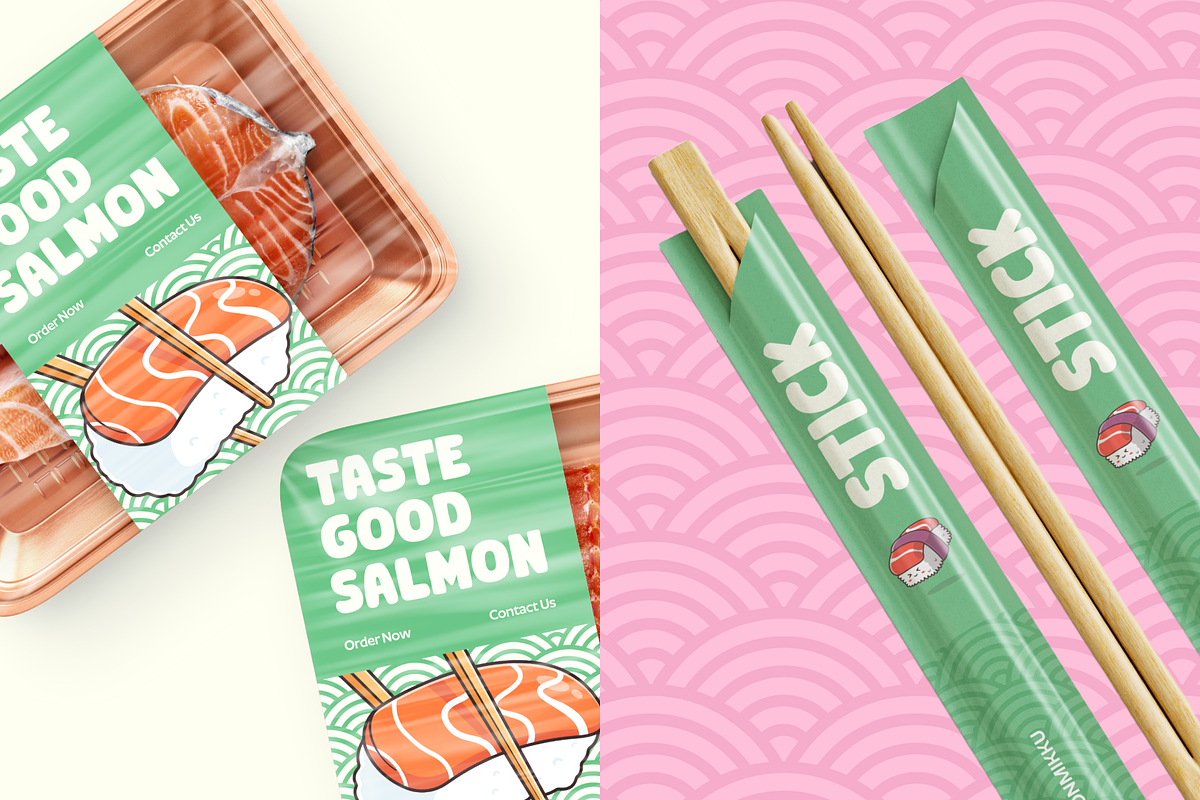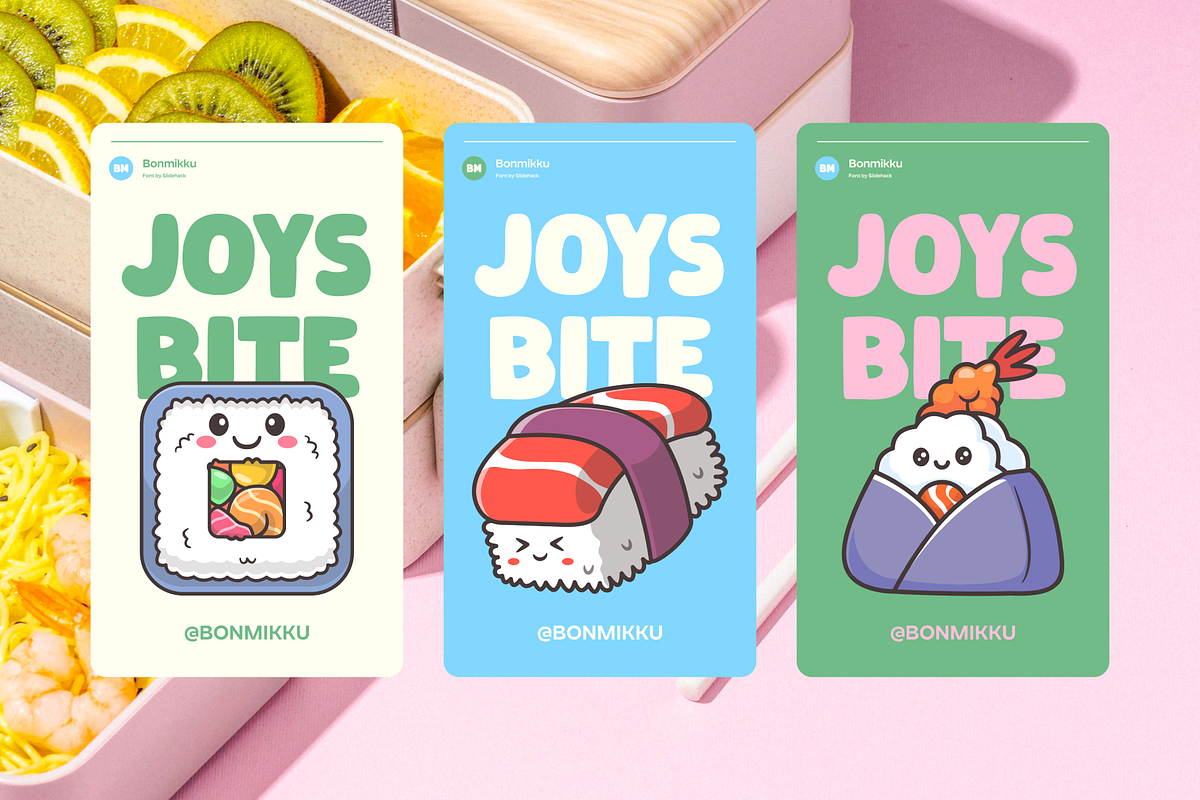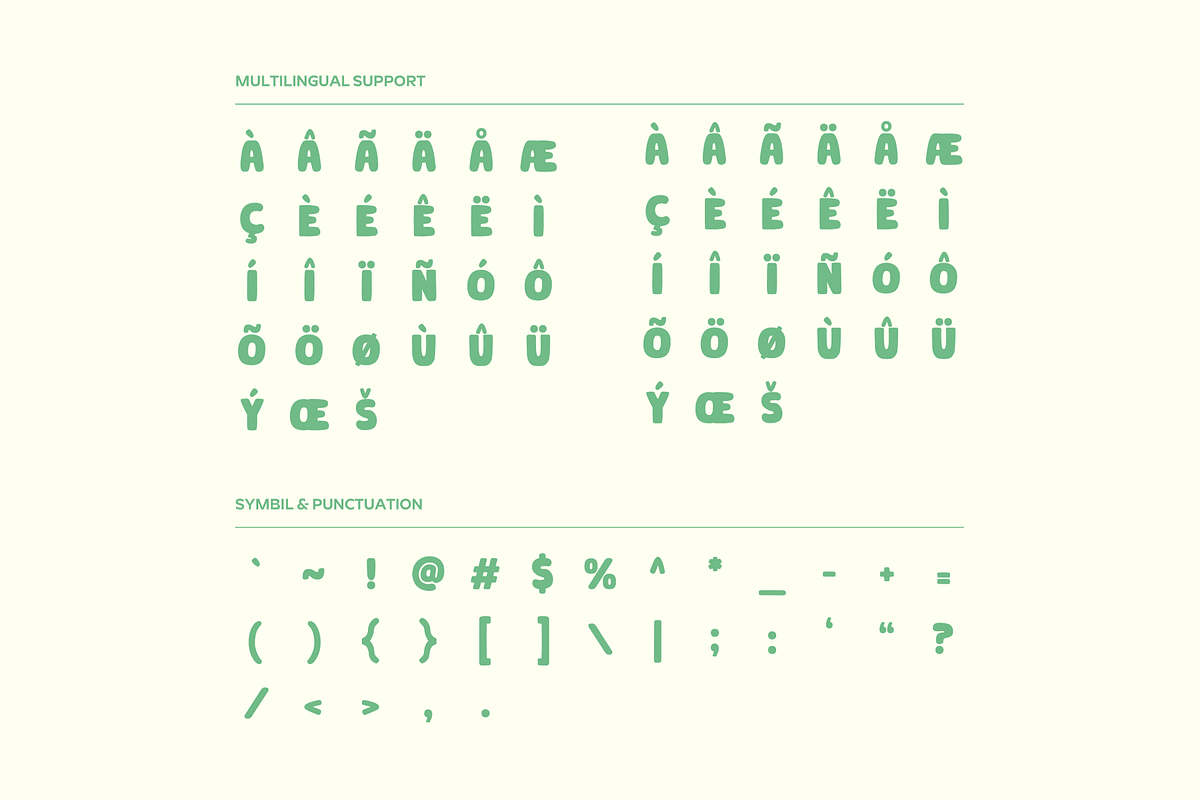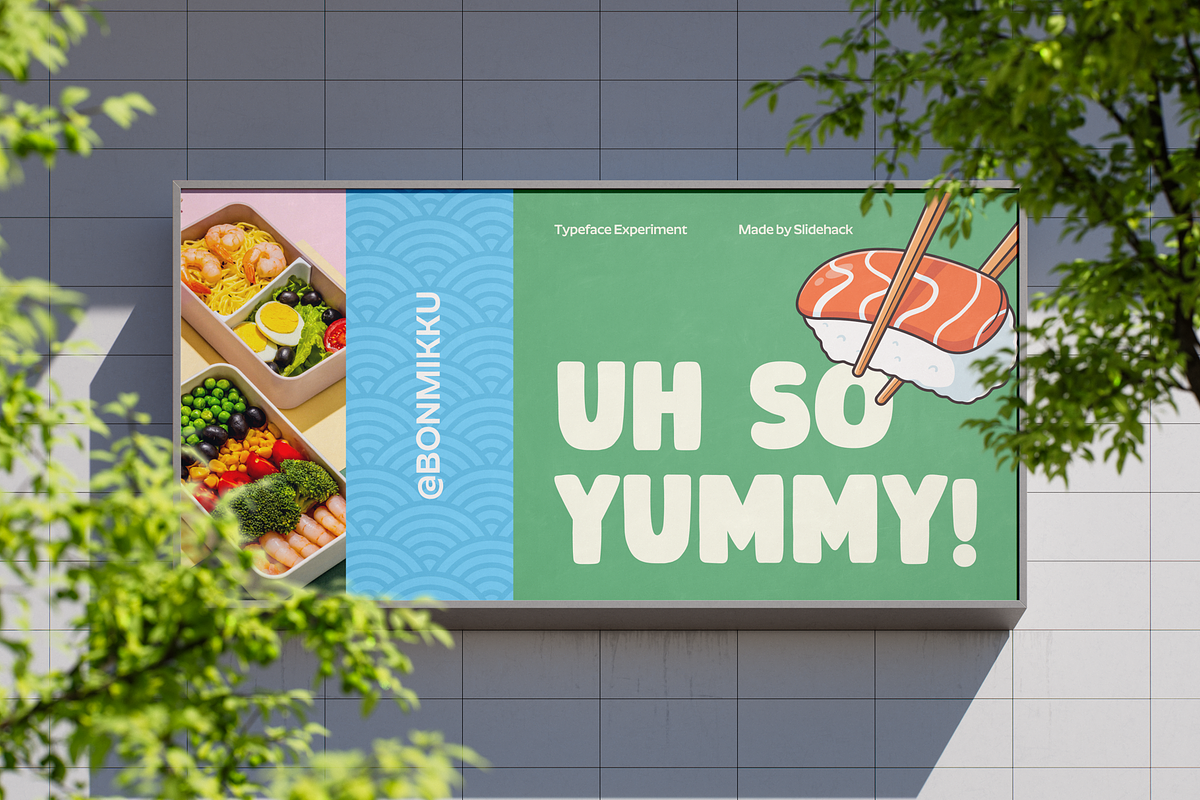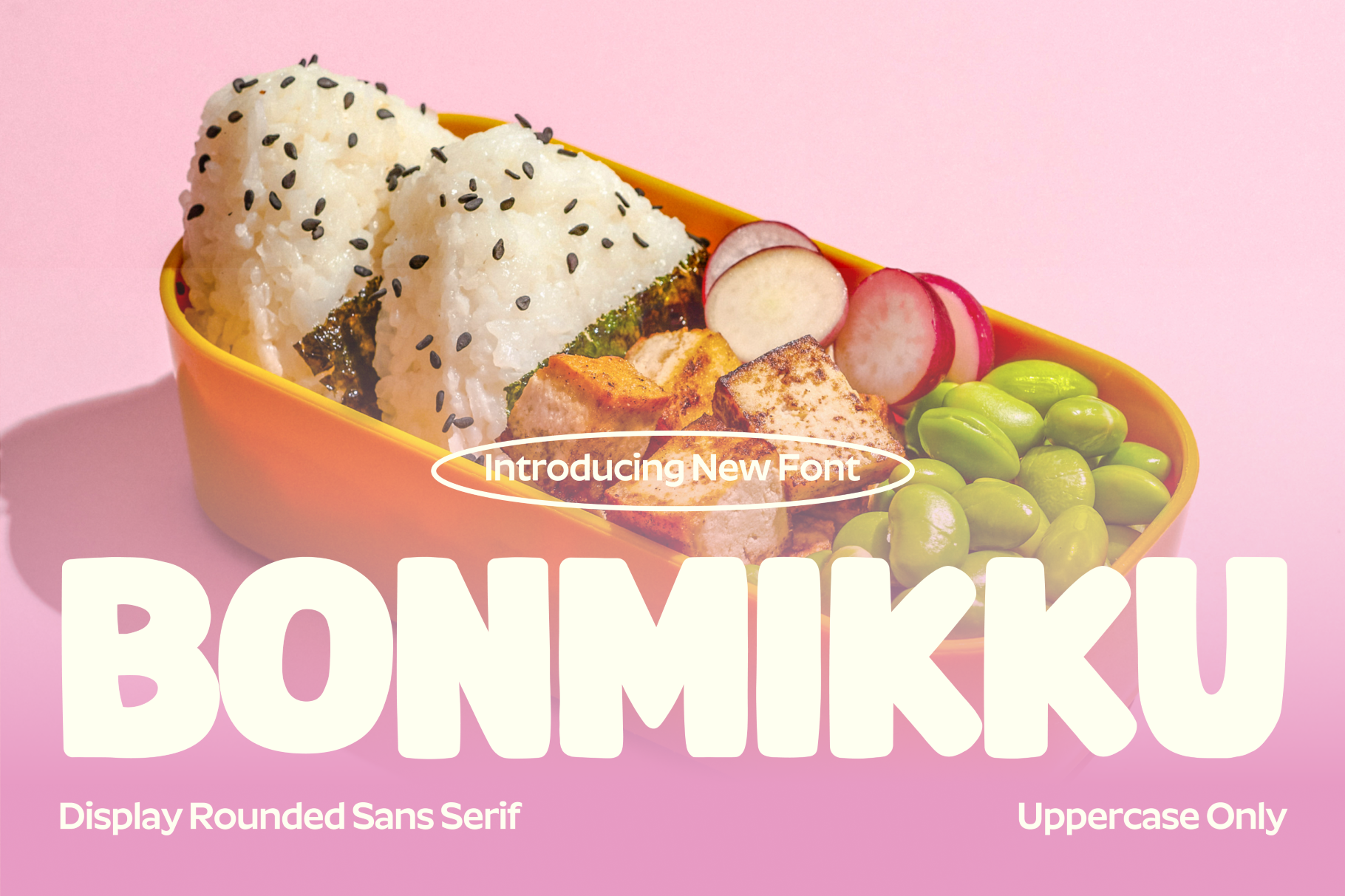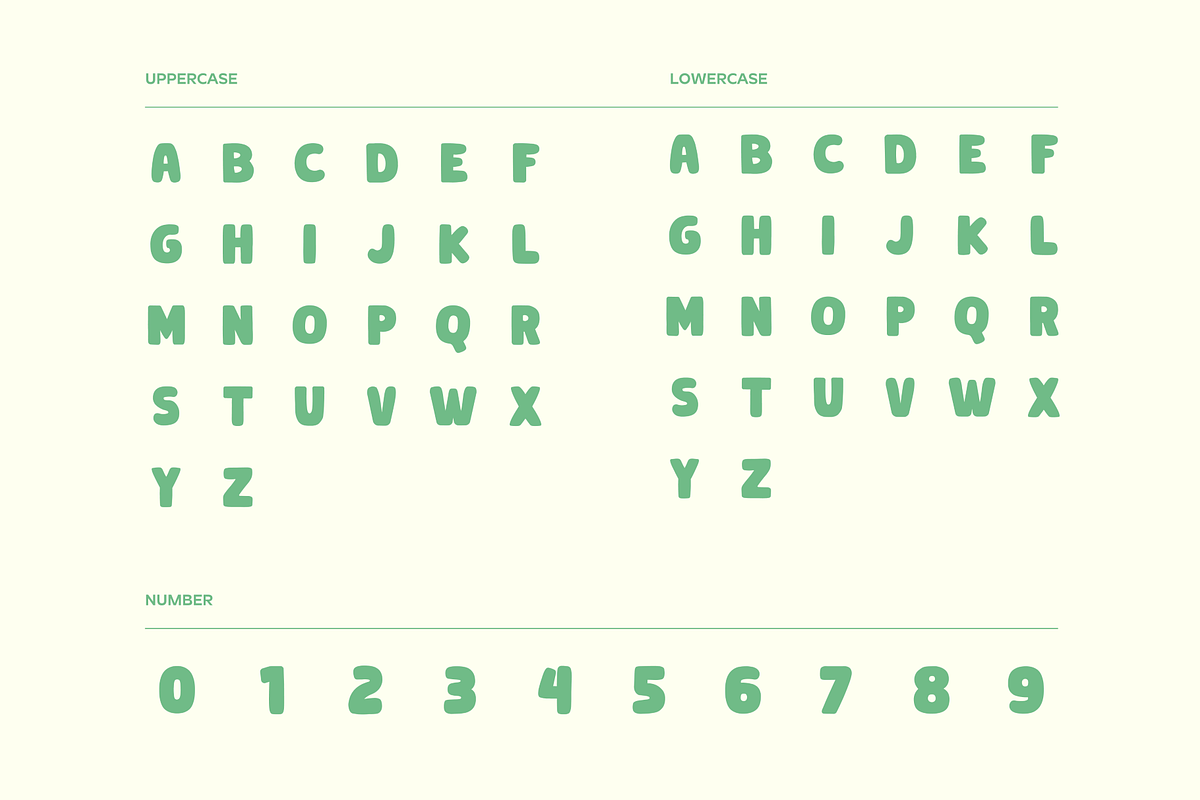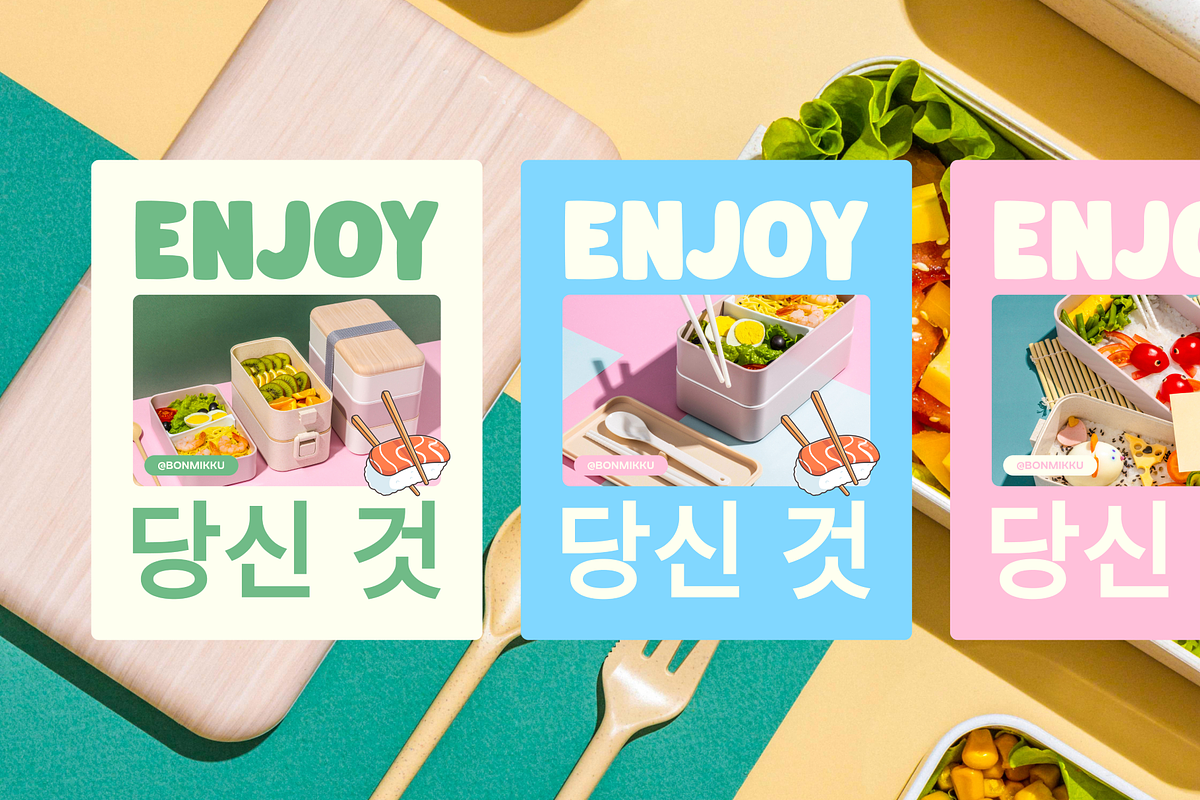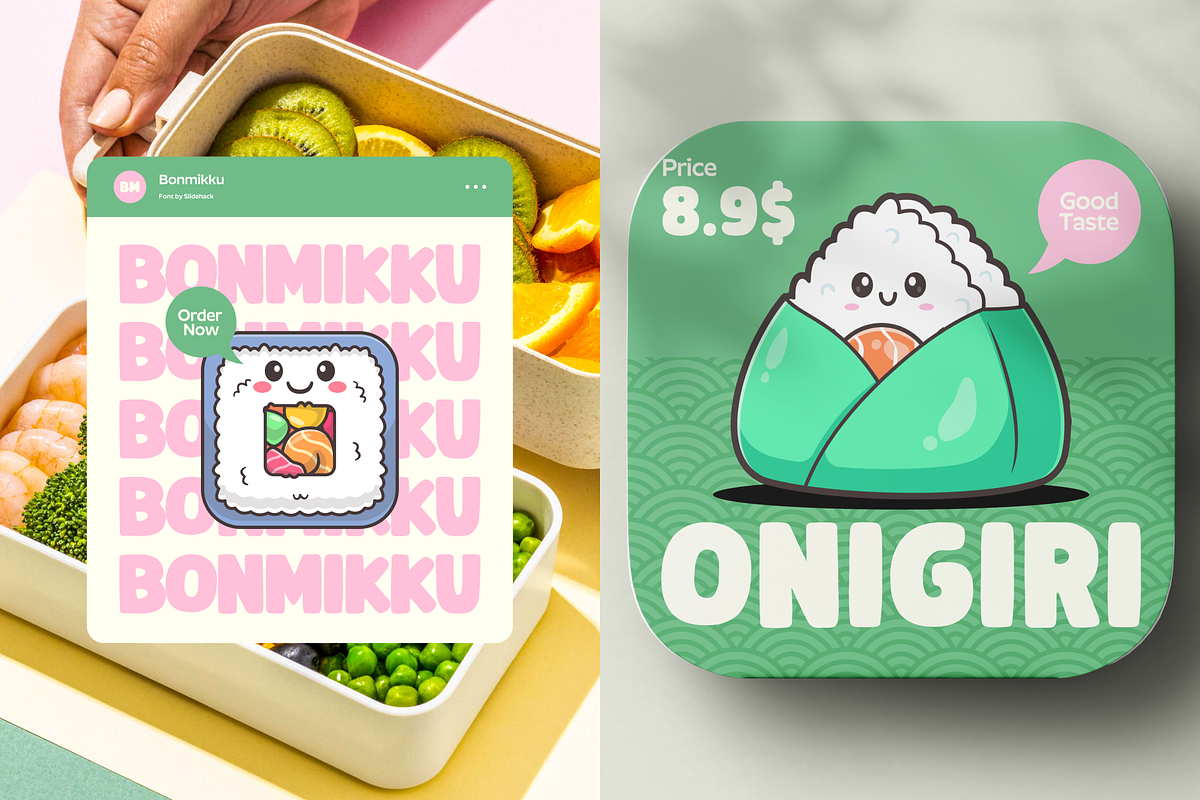
Bonmikku - Playful Rounded Font
Bonmikku is a playful rounded sans serif display font inspired by Japanese bento aesthetics. Its bold, soft curves bring a friendly and modern vibe to any project. Perfect for food branding, packaging, logos, or social media. Bonmikku adds warmth, charm, and personality to your creative work.